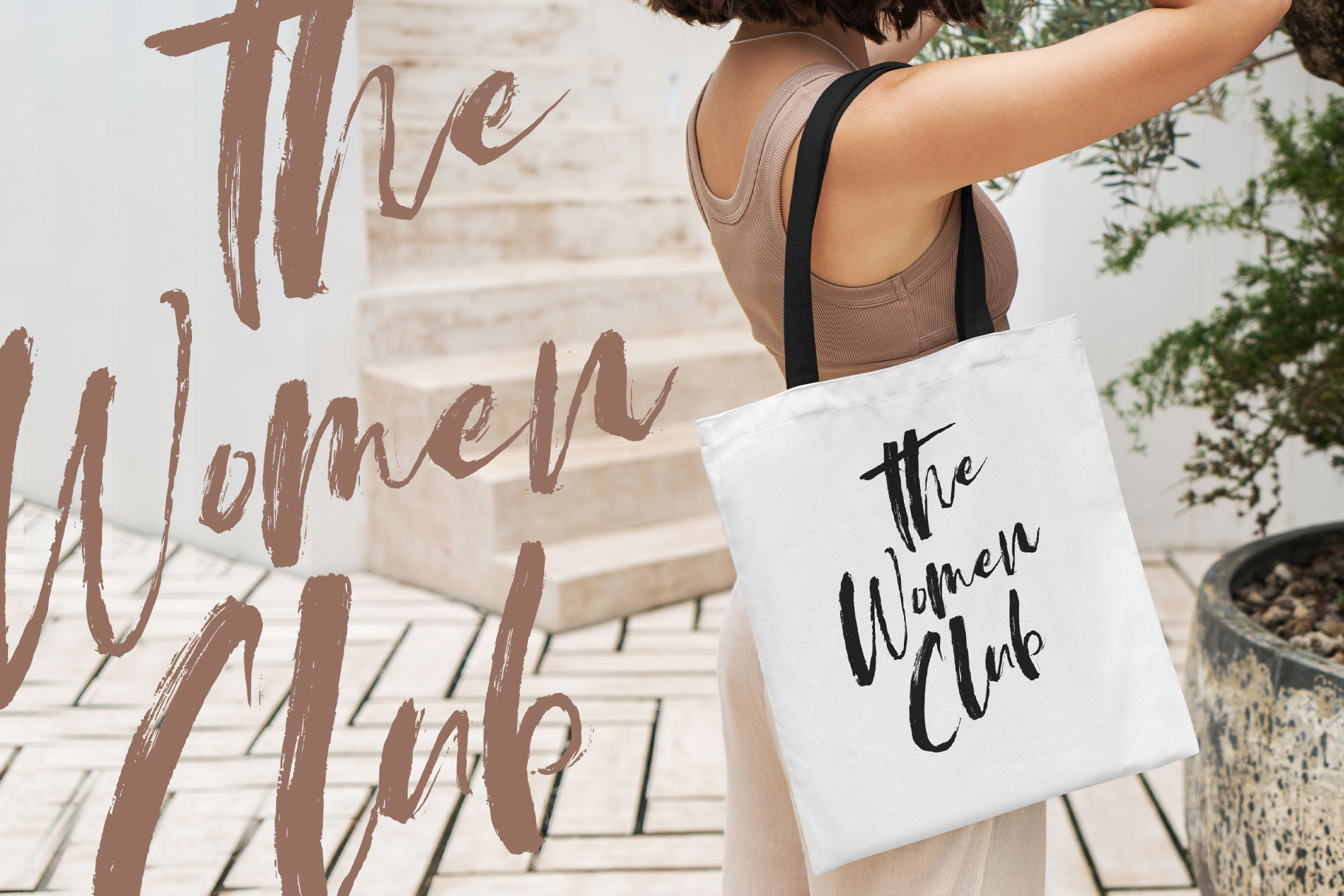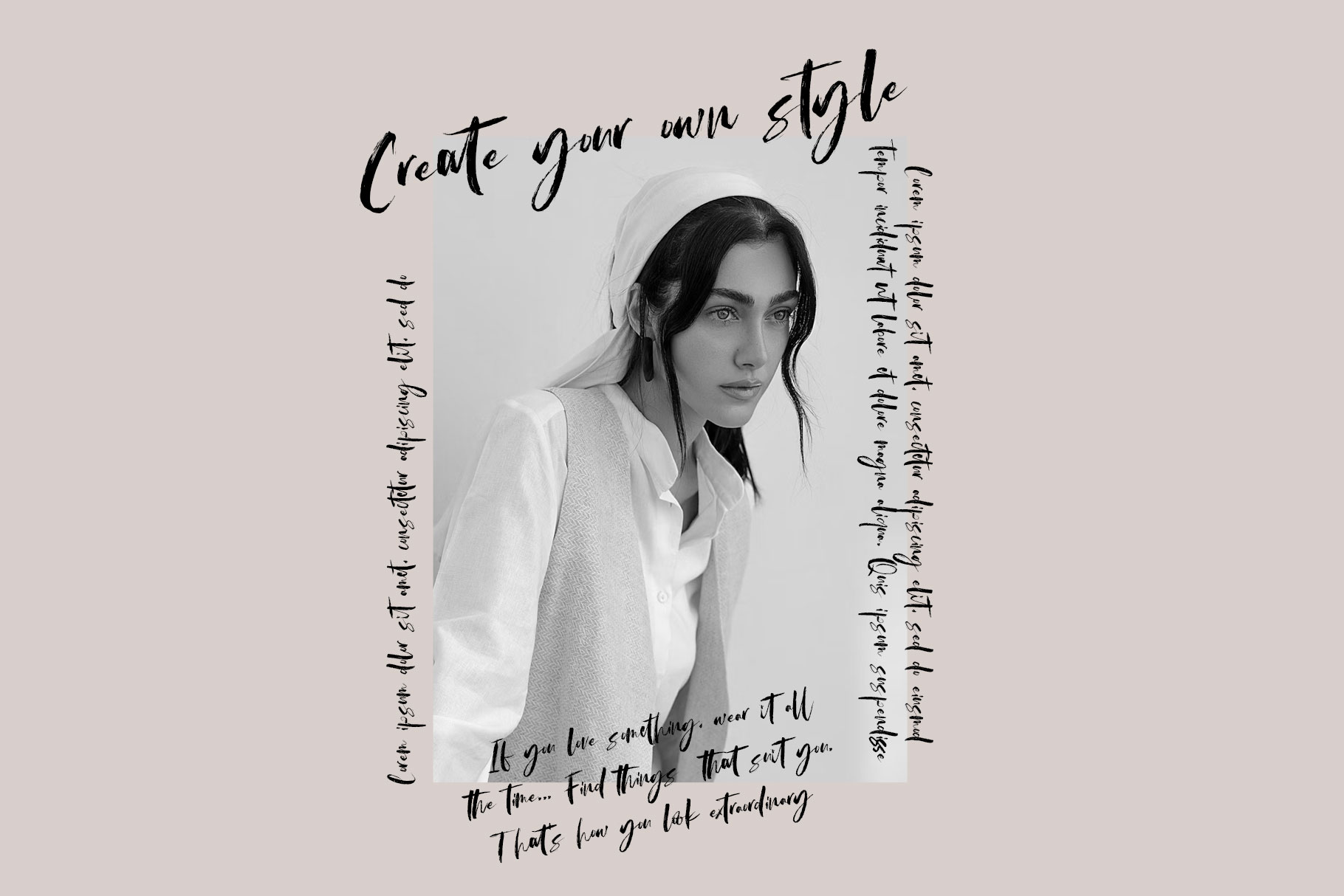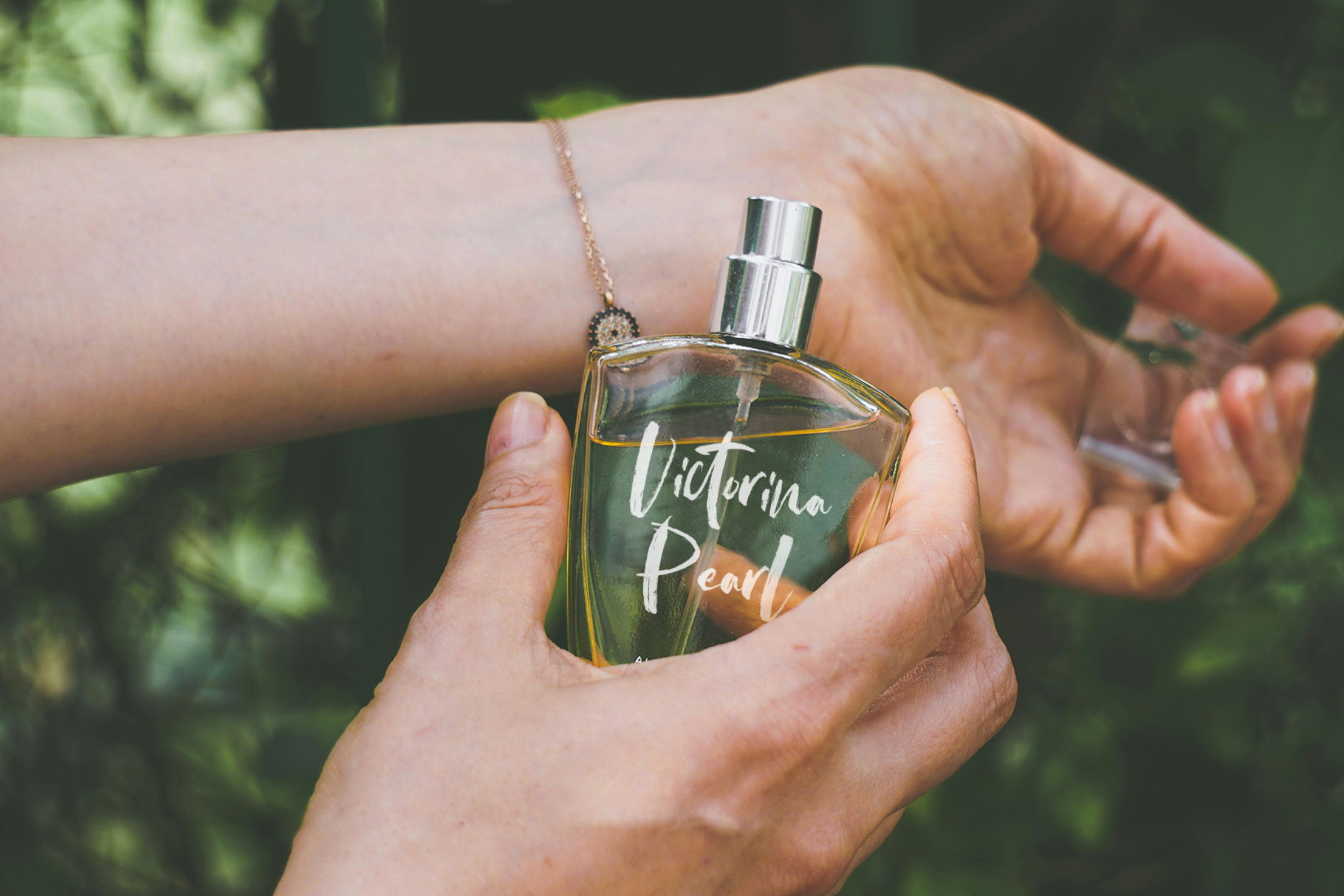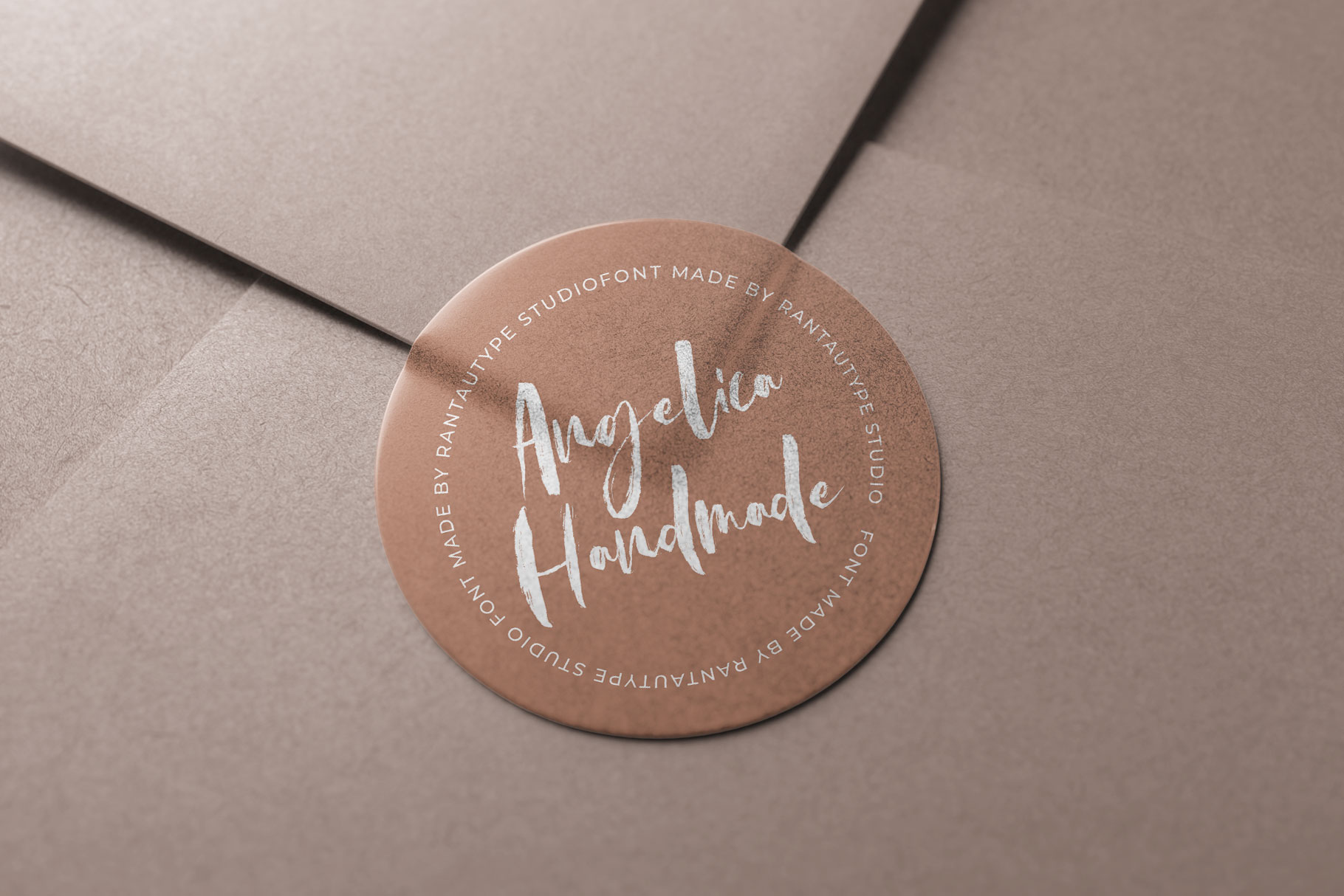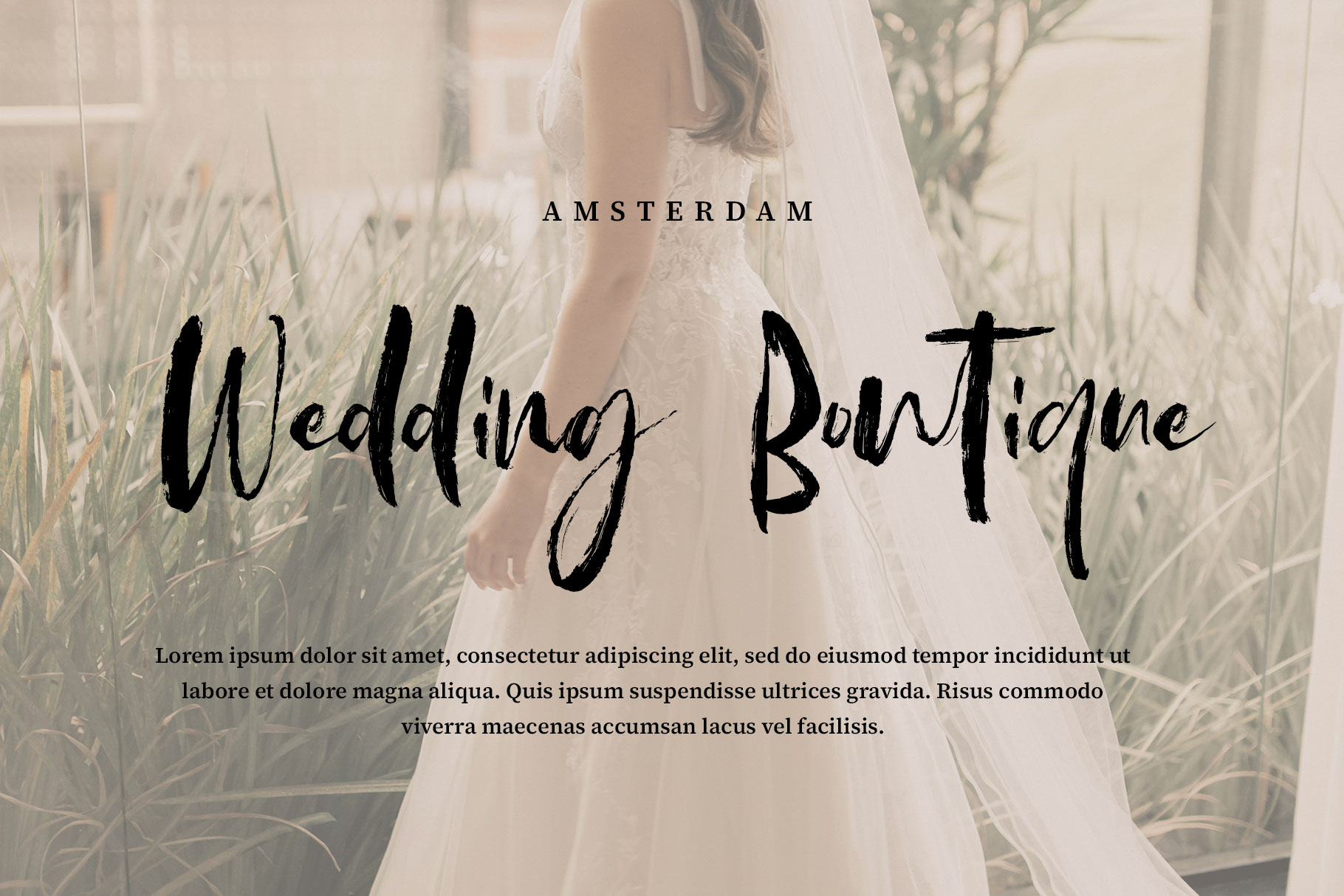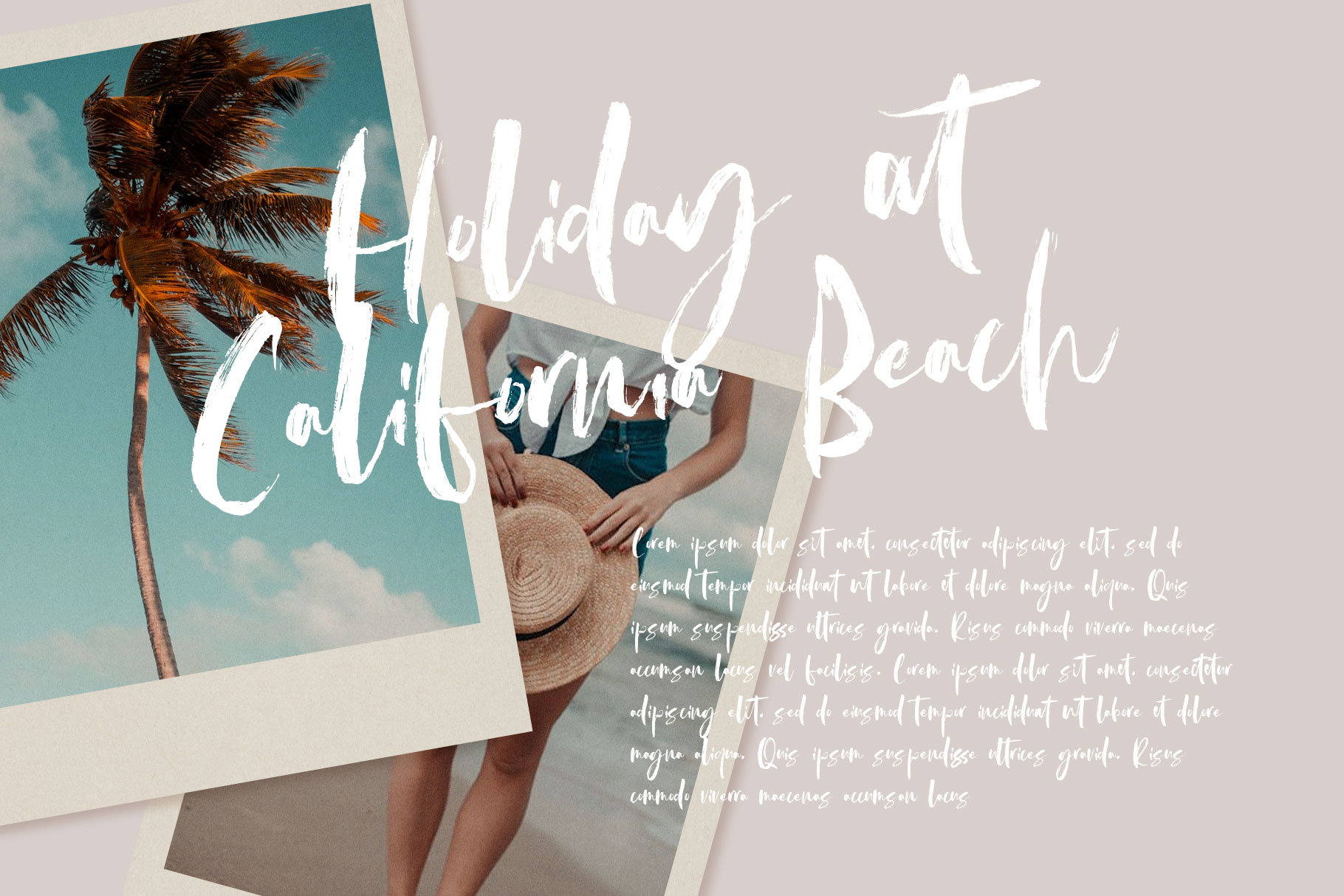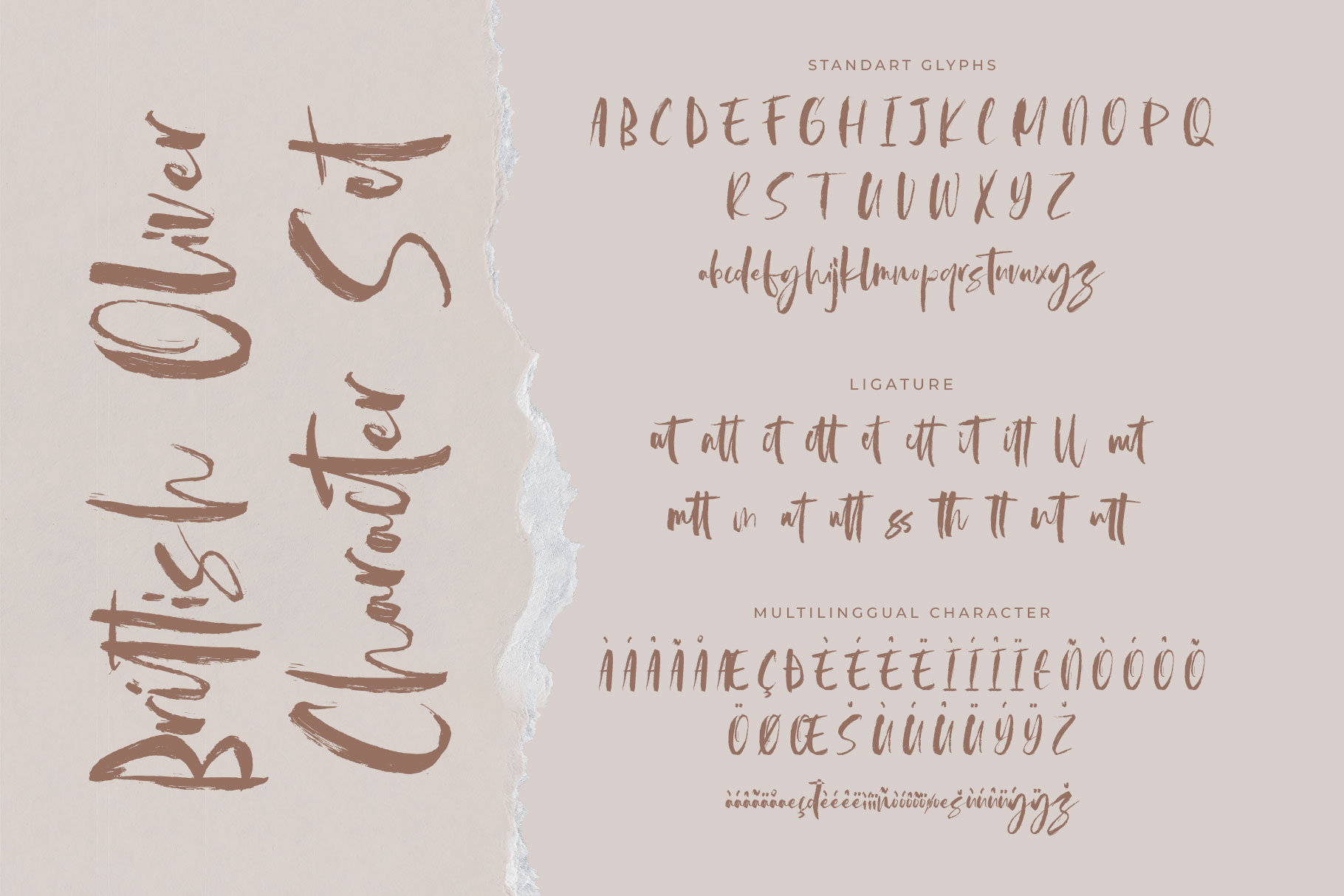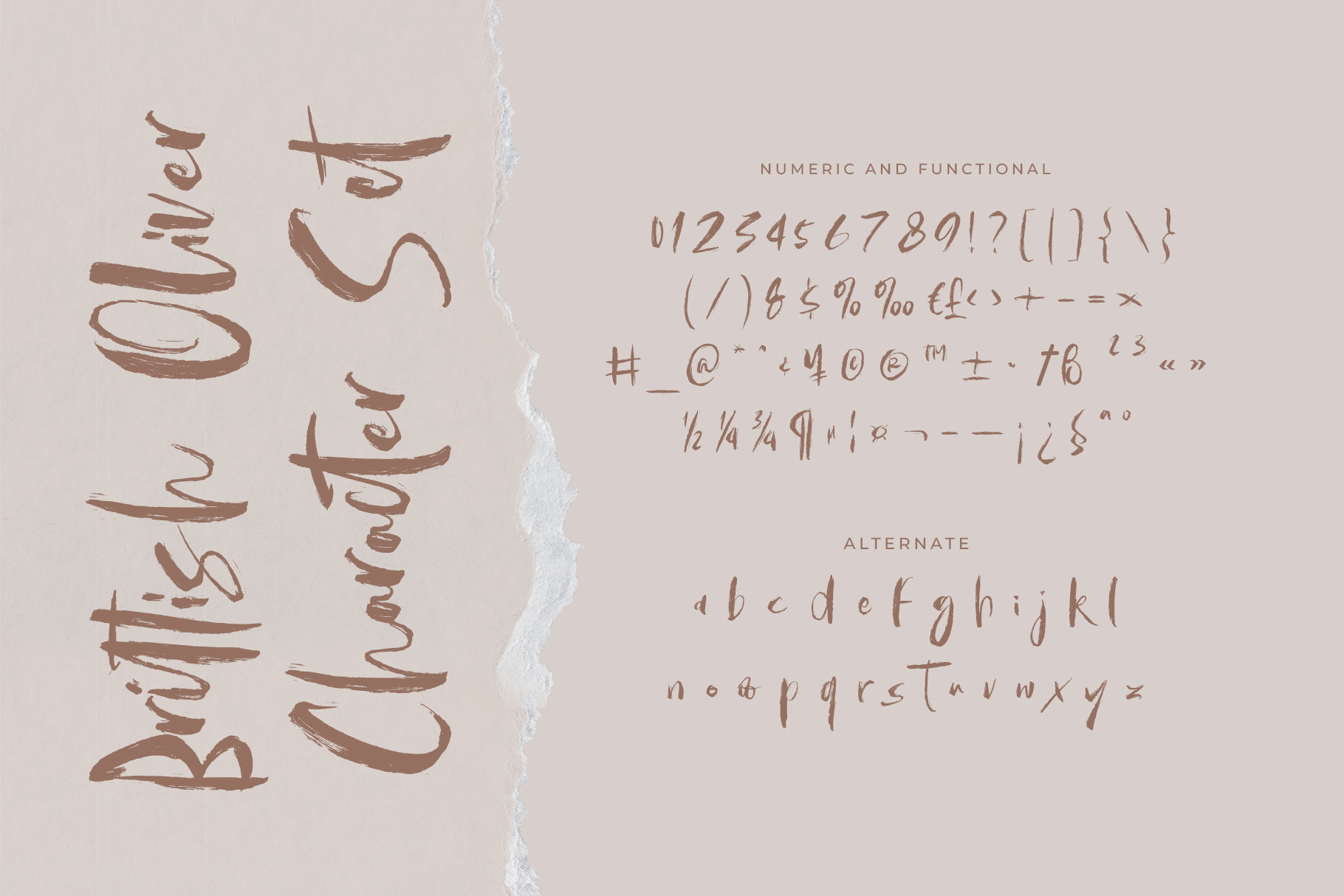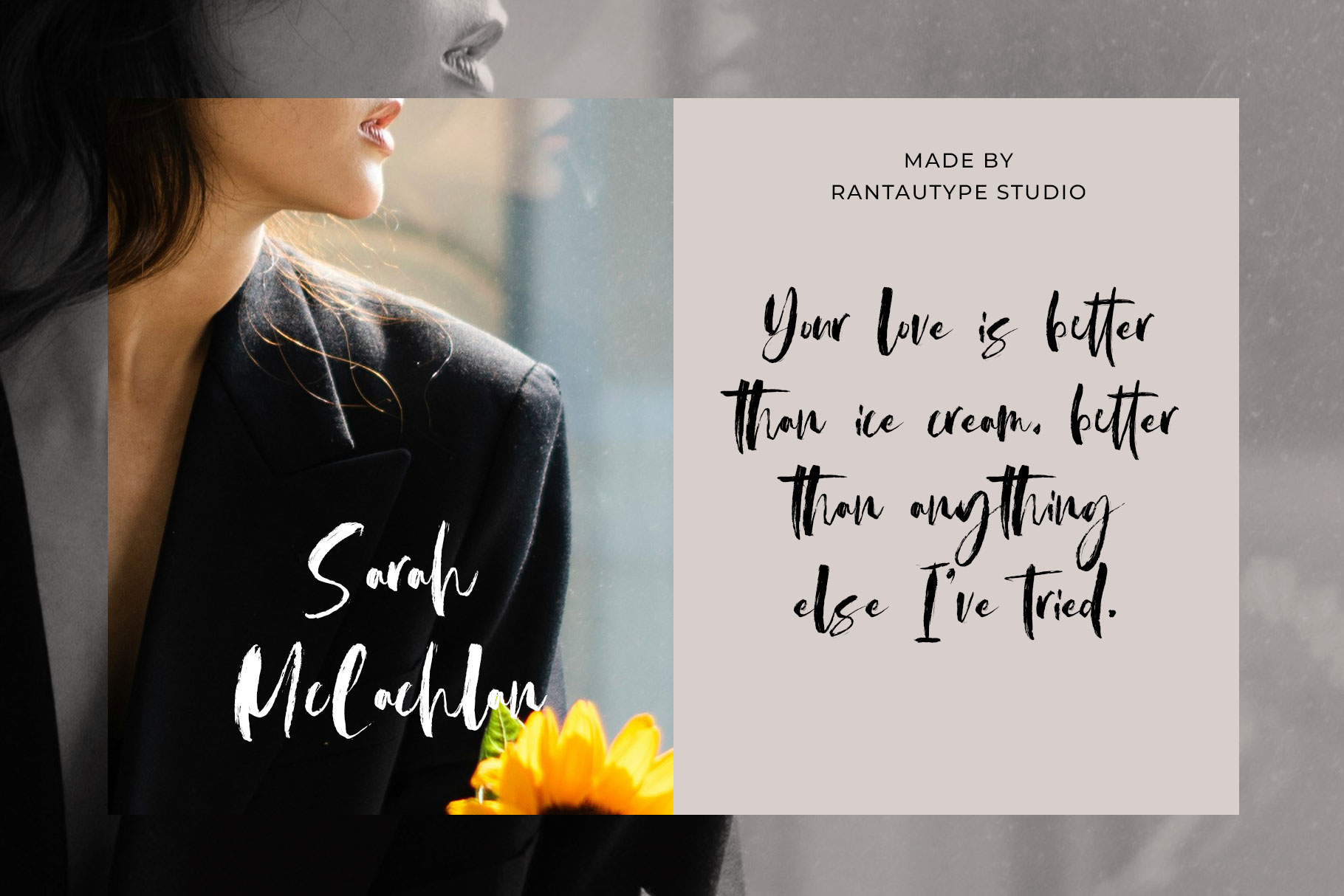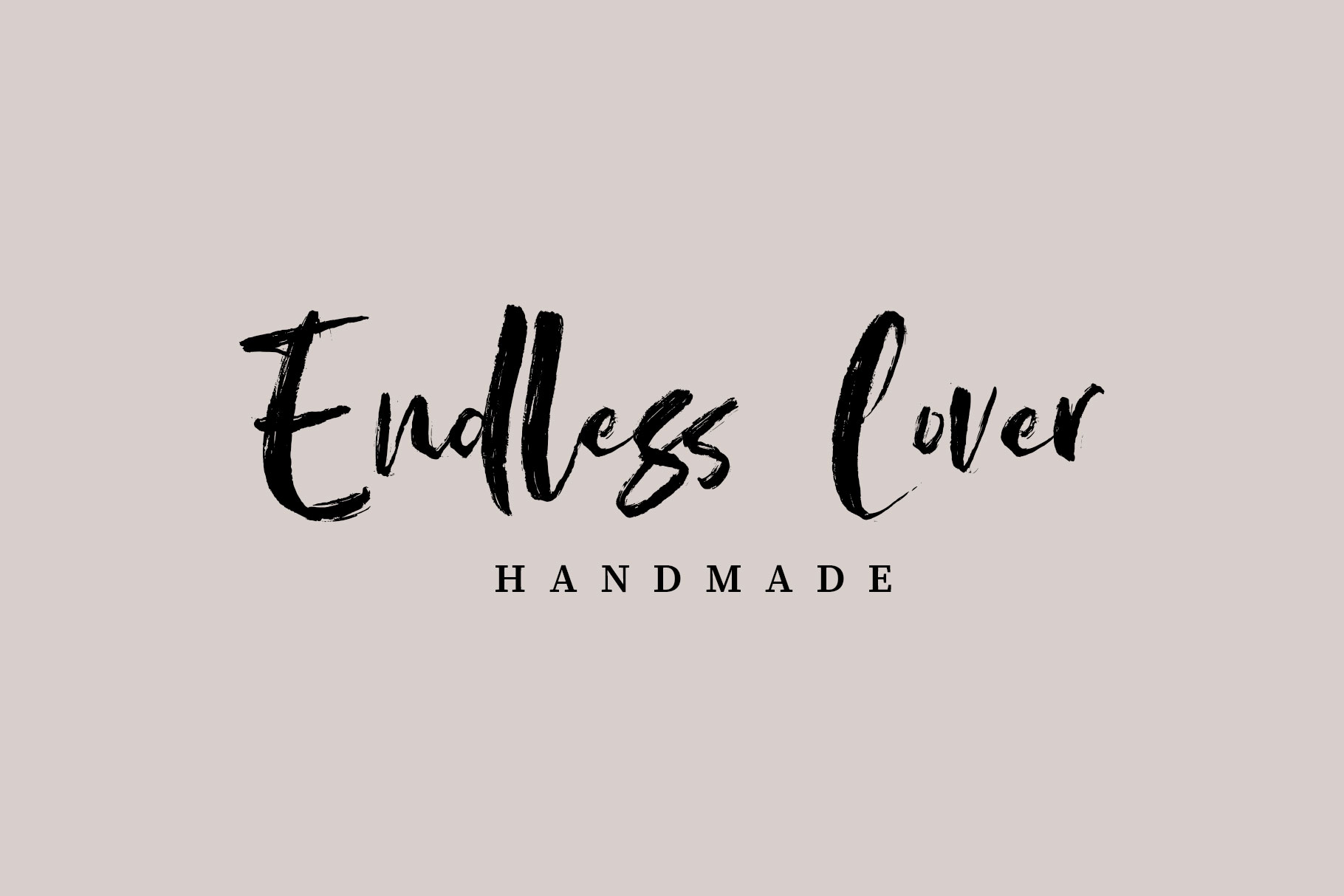
Brittish Oliver Handwritten Script Font
Brittish Oliver is handwritten script font made by rantautype studio. Brittish Oliver is a perfectly choice for any creative endeavor, creating, modern, chic, lifestyle design such as logotype, title, cover, branding, invitations, wedding designs, display and magazine, social media posts, advertisements, printed quotes, product packaging, corporate brand, product designs, labels, photography, watermarks, special events and any other project with handwritten touch.